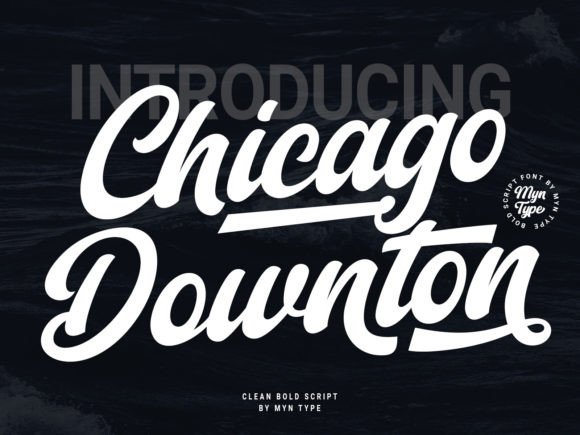
Introducing Chicago Downton Font, the perfect choice for those seeking a Font Style For Handwriting! Crafted by the talented team at myntype, this bold script font is sure to captivate and inspire. Drawing inspiration from the classic baseball font and infused with a vintage script, Chicago Downton brings a unique and nostalgic charm to your designs.
With Chicago Downton, your creative projects will come alive with an incredibly joyful touch. Whether you're designing logos, branding materials, invitations, or social media graphics, this font is guaranteed to make them stand out from the crowd. Its distinct and eye-catching style will leave a lasting impression on your audience.
Embrace the timeless elegance of Chicago Downton and elevate your projects to new heights of sophistication. Each letter is meticulously crafted, exuding a sense of craftsmanship and attention to detail. From its bold and confident strokes to its intricate ligatures, this font is a true work of art.
But Chicago Downton is not just about aesthetics. It is also highly versatile, offering a wide range of creative possibilities. Its script nature allows for seamless combinations of letters, giving you the freedom to create unique and personalized typography. Let your imagination run wild and watch as this font effortlessly brings your ideas to life.
Whether you're a professional designer or a creative enthusiast, Chicago Downton is a must-have addition to your font collection. Its versatility and charm make it suitable for a variety of projects, from wedding invitations to product packaging. Stand out from the crowd and leave a lasting impression with this captivating font.
In conclusion, Chicago Downton Font is your gateway to captivating and eye-catching designs. Let its bold script style and vintage charm breathe life into your projects, making them truly unforgettable. Download this beautiful display font today and unleash your creativity like never before.